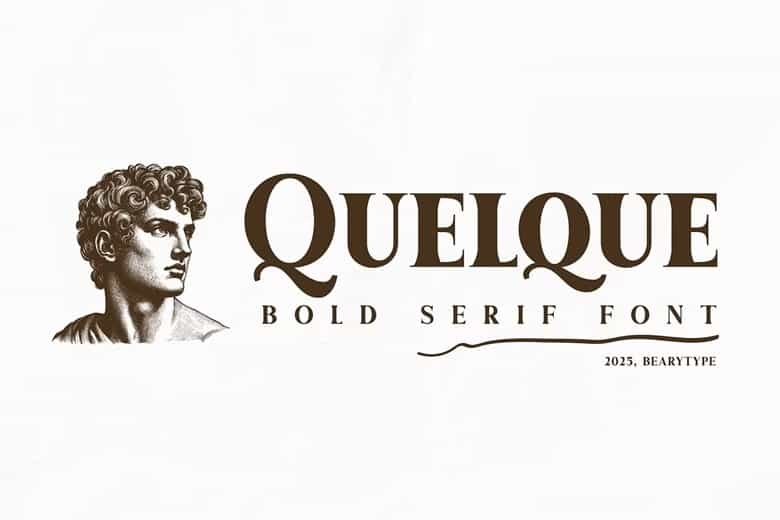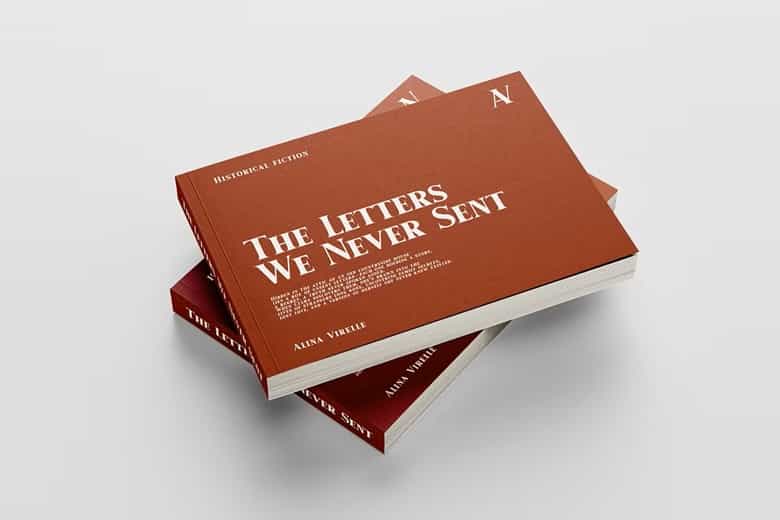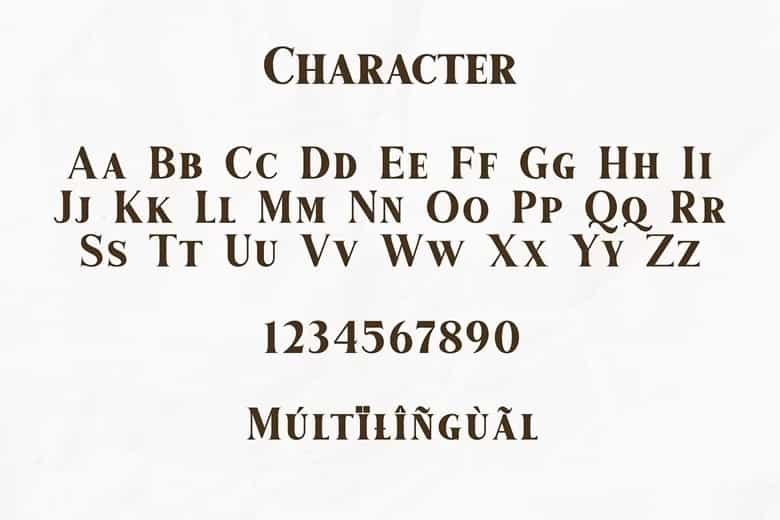
Quelque is a daring serif with 218 glyphs and has a multi-lingual support. There is a powerful touch of sophistication with bold, thick serifs and harmonious letterforms given by Quelque. It was created to be eye-catching; bringing together traditional design with a modern twist, it can be used in any design that requires a punch; headlines, editorial layouts, book covers, branding, posters, and packaging.